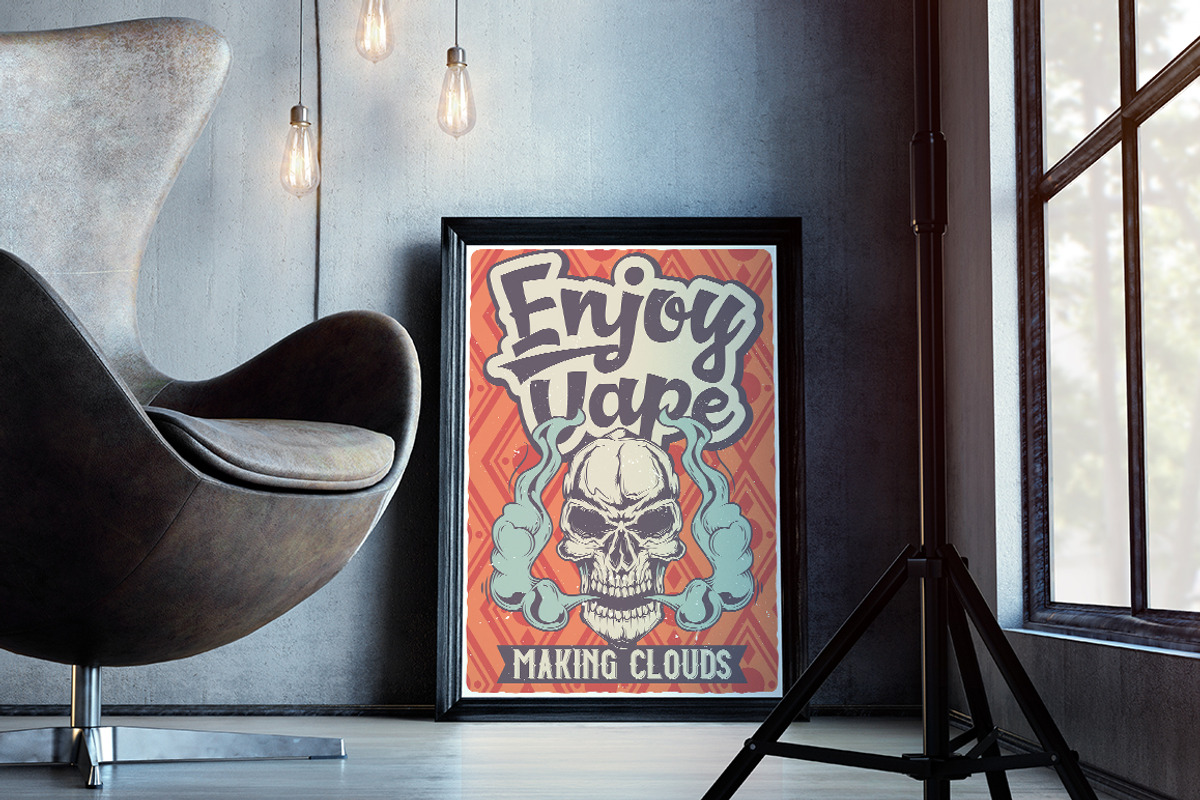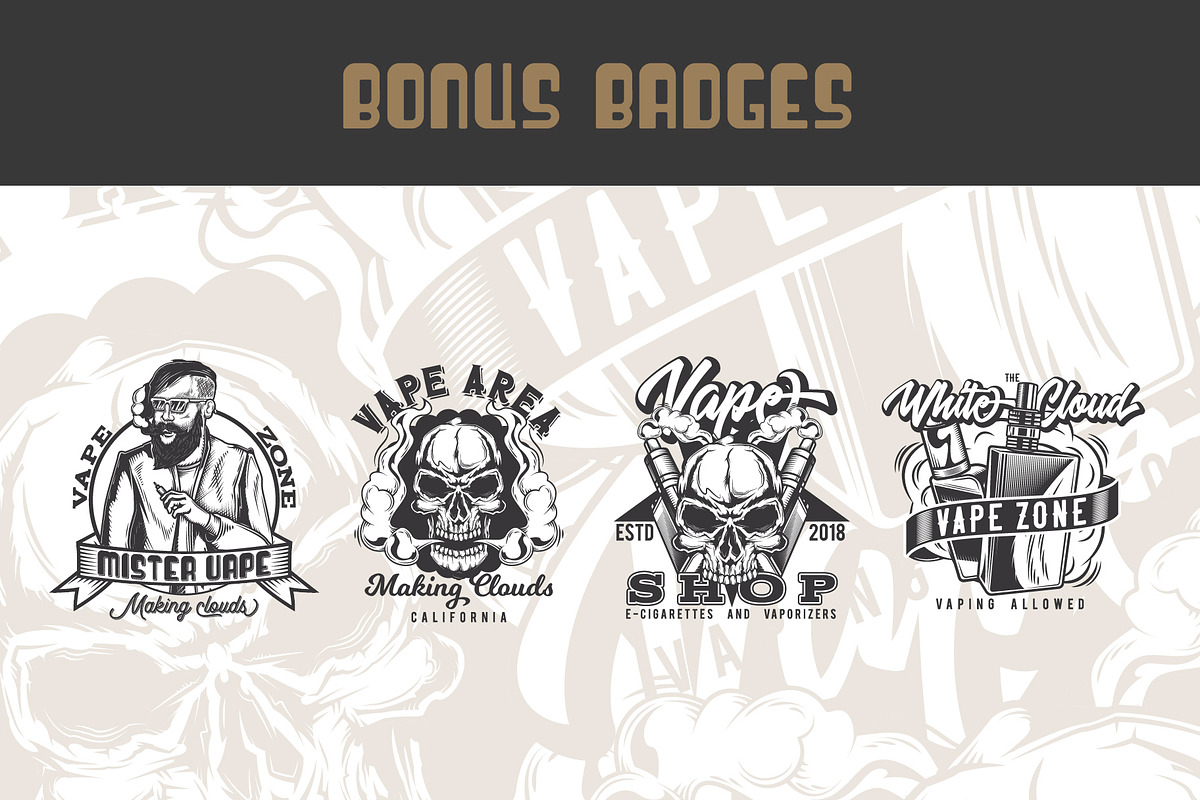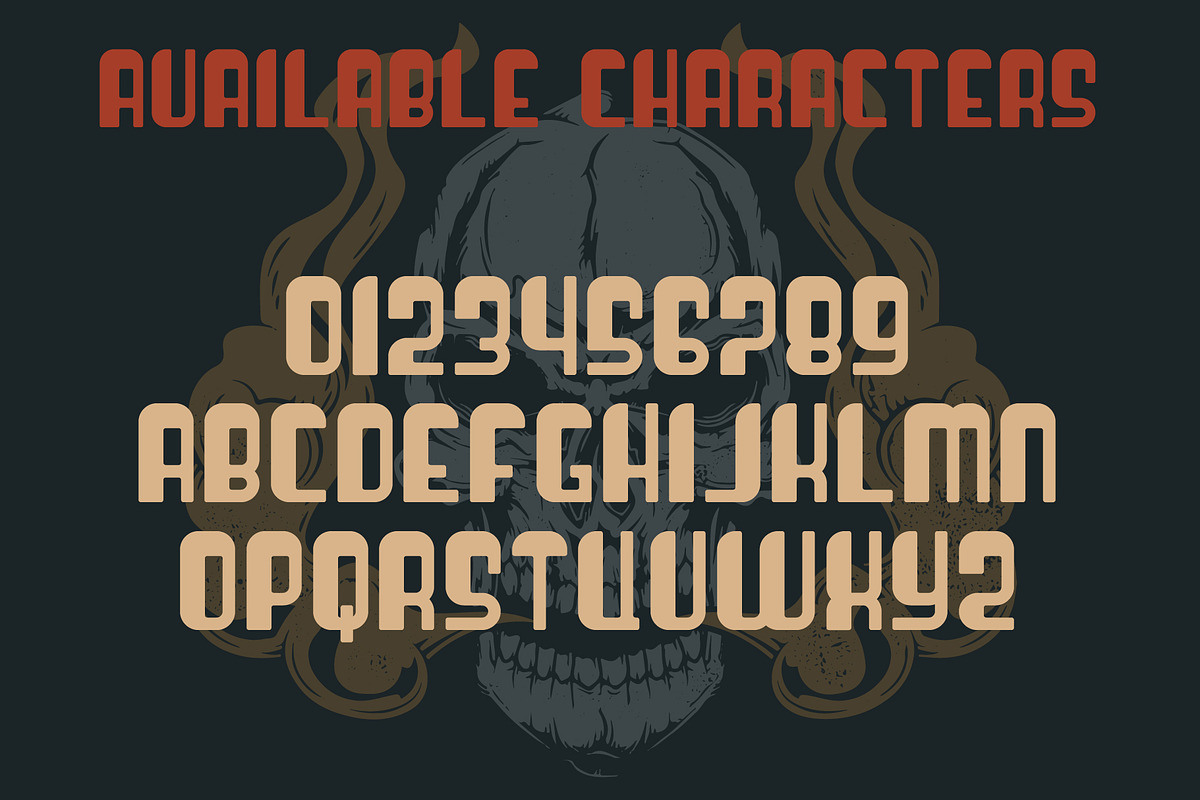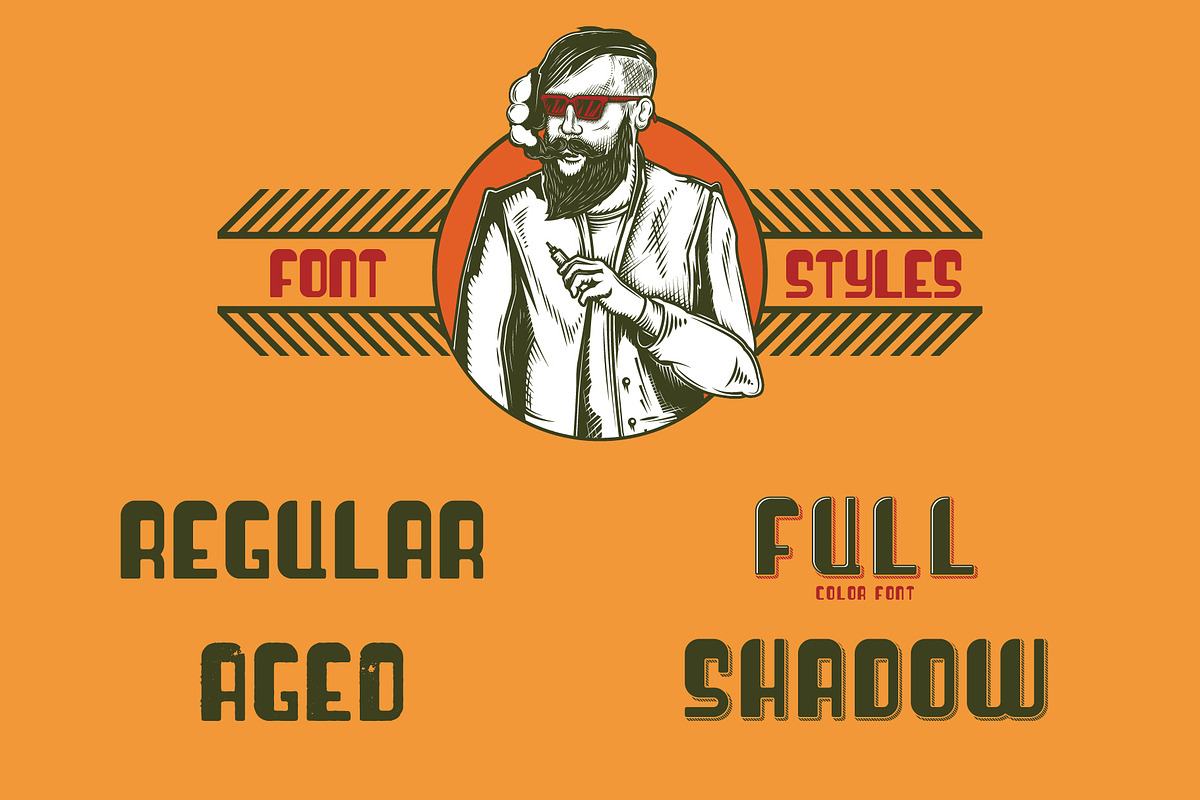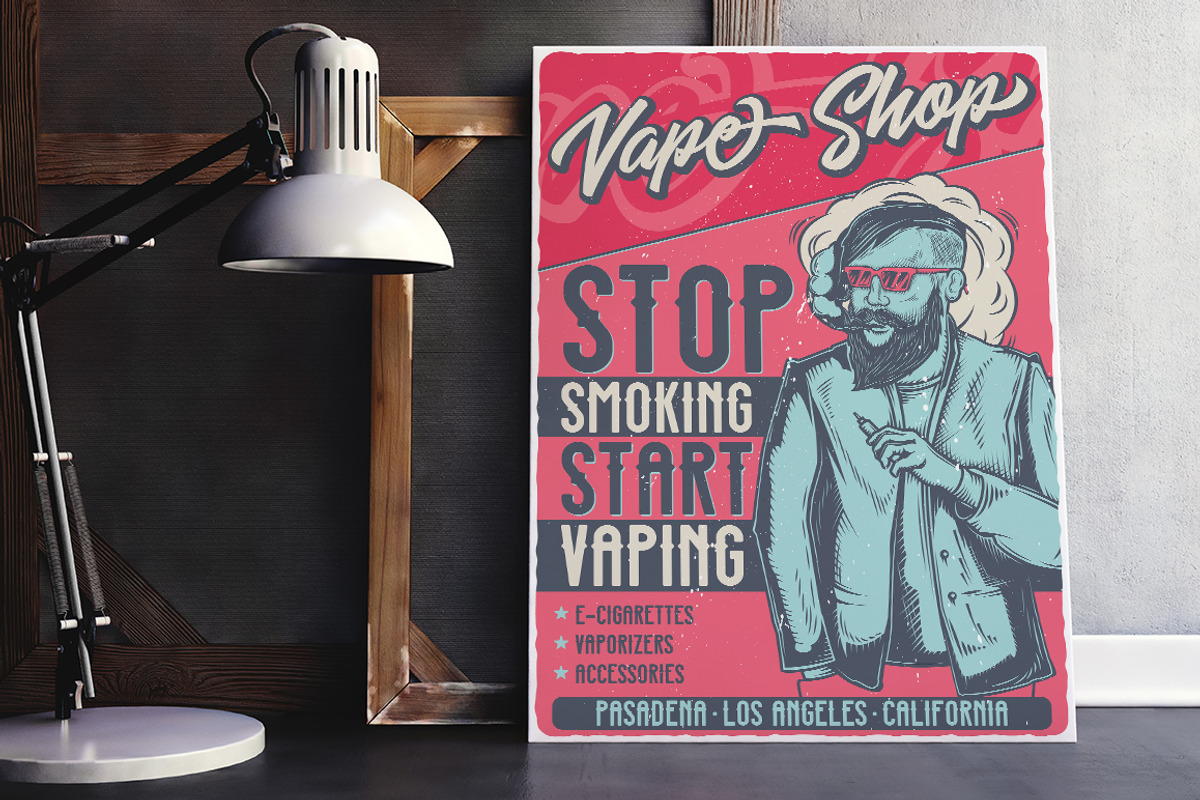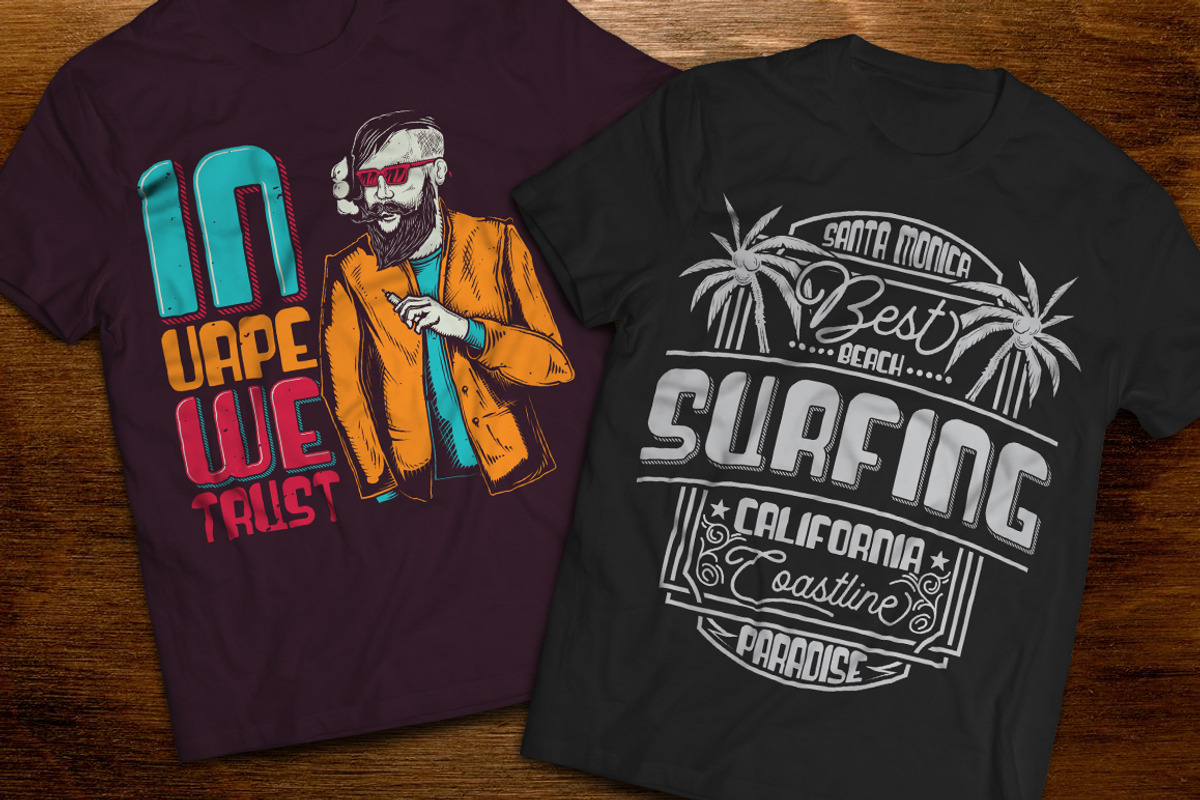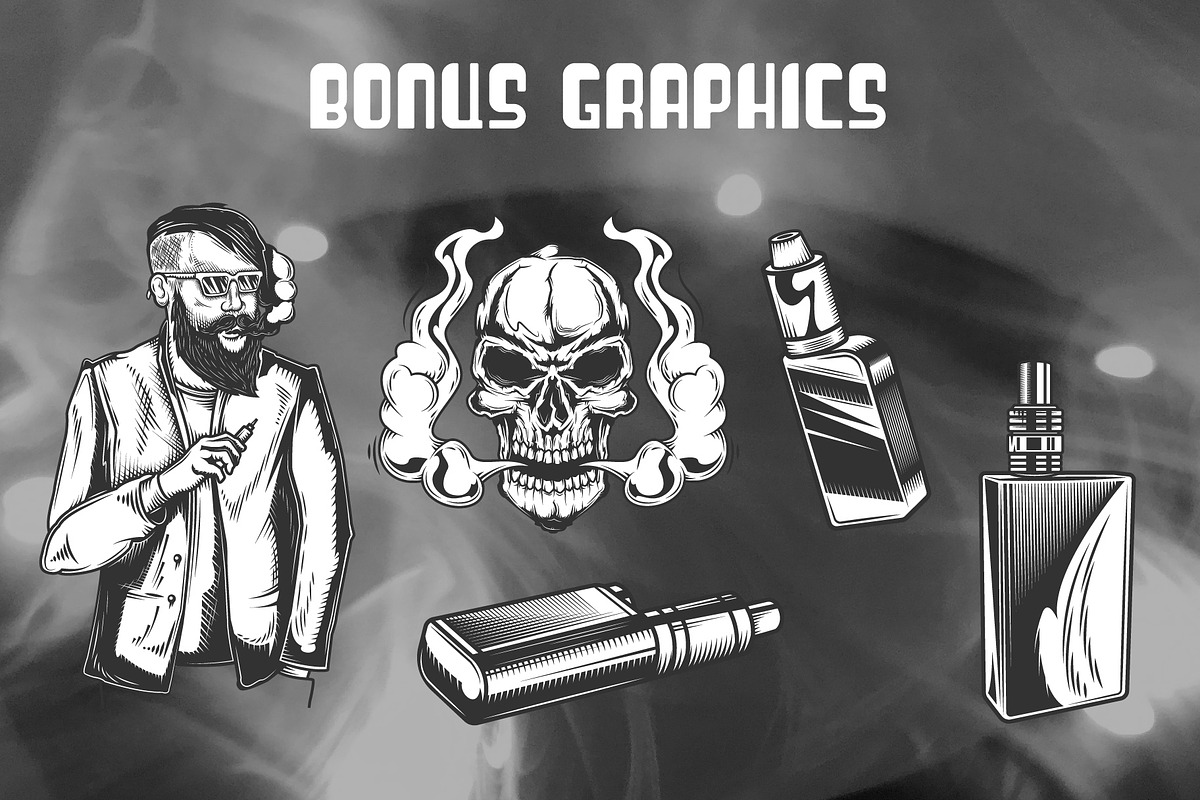
Vaperizer Typeface + Bonus
Introducing a vintage look label typeface named "Vaporizer". This typeface includes four styles, for sample look at 3rd preview. Typeface is good viewed on any yours design.
- This typeface includes four styles, for sample look at 3rd preview.